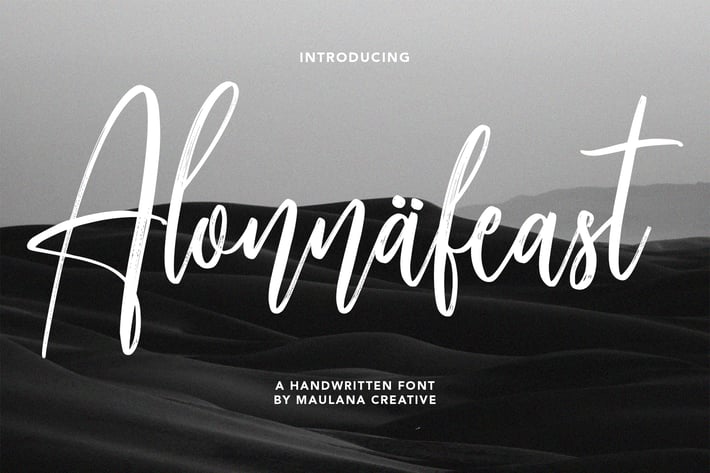
Alonnafeast Brush Script Font
Alonnafeast is a modern brush script font. It use a brush stroke to make it cool if look on the details. It readable in short text. Alonnafeast includes opentype features Ligatures and lowercase Alternate, you can mixed the lowercase alternate to make it coolest. Alonnafeast support multilingual more than 100+ language. This font is good for logo design, Movie Titles, Books Titles and any awesome project you create. Make a stunning work with Alonnafeast brush script font.
Give your designs an authentic handcrafted feel. Alonnafeast Brush Script Font is perfectly suited to logo, stationery, branding, typography quotes, magazine or book cover, website header, clothing, branding, packaging design, restaurant and more.